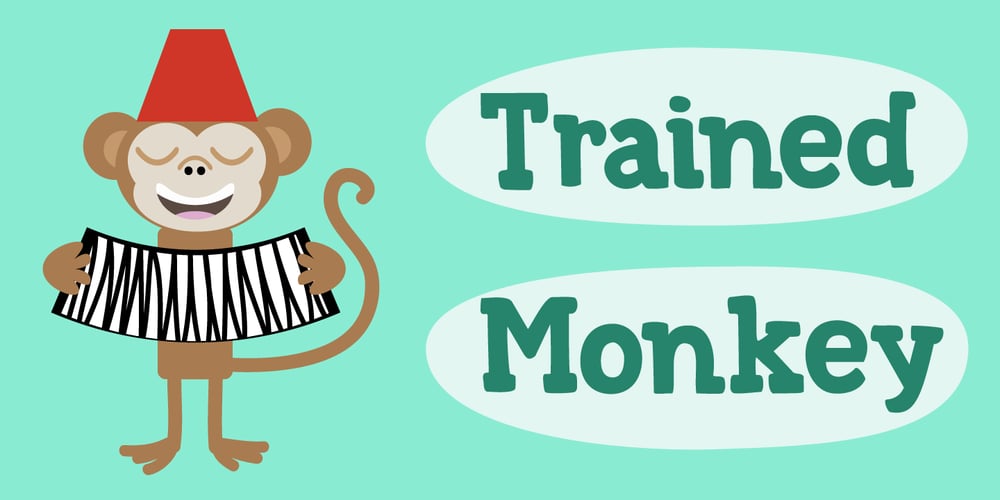
Trained Monkey Font Family was designed by David Kerkhoff and published by Hanoded. Trained Monkey contains 2 styles and family package options. Trained Monkey is a happy serif cartoon font. Use it for your book cover designs, posters, product packaging (may I suggest peanut butter?) and whatever else you may fancy. This monkey was made by hand, so the glyph edges are a bit rough and uneven – giving it ‘ye olde handmade look’. The name? Well, I was watching a movie (can’t remember which one) in which two guys were having a discussion. One of them said to the other: ‘a trained monkey could have done this job!’ That’s all folks.